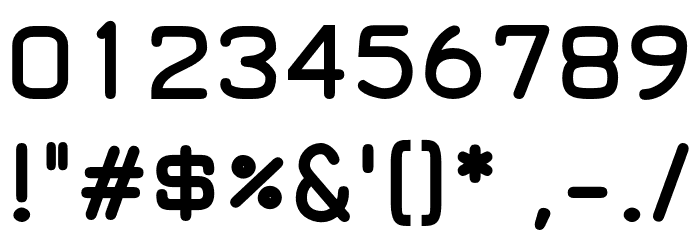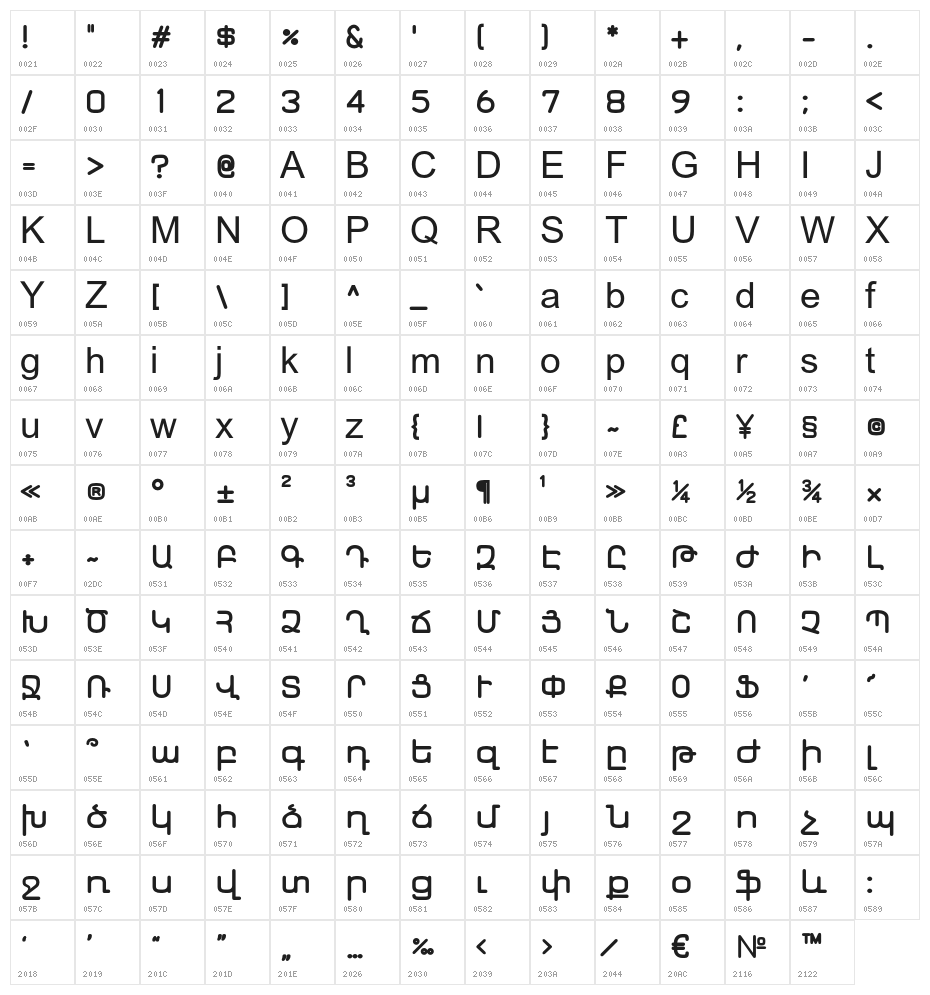
Nortar-Bold Font
Nortar-Bold Description
This font exhibits a clean and modern sans-serif style, characterized by its bold weight and uniform stroke width. The characters are well-proportioned, offering a balanced and harmonious appearance. The uppercase letters are slightly taller than the lowercase, providing a clear distinction. The numerals are straightforward and align well with the overall geometric design. Special characters are included, maintaining the consistent style of the font. The overall design is minimalistic, making it versatile for various applications.
| Use Case | Headlines, Logos, Digital Interfaces |
| Proposed Projects | Ideal for branding, headlines, digital interfaces, and modern print materials. |